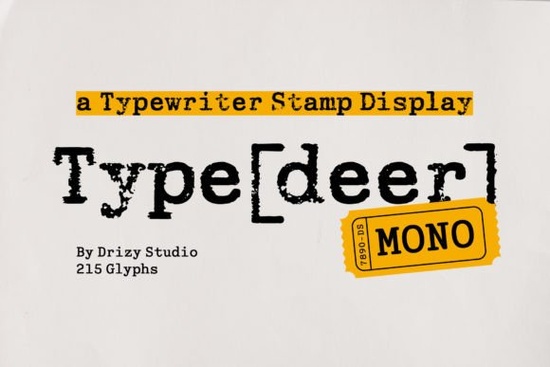
Looking for a font that brings a handmade, vintage feel to your designs? Typedeer Mono delivers exactly that a typeface built to mimic the look of rubber stamp impressions. It’s perfect if you want to add character to stationery, packaging, or digital projects without relying on stock images or clip art.
What makes Typedeer Mono stand out?
Unlike clean, uniform fonts, Typedeer Mono has an intentionally imperfect look. Each letter shows slight variations in stroke width, uneven edges, and subtle ink smudges just like real rubber stamps pressed onto paper. This irregularity gives your work a tactile, authentic vibe that feels personal and crafted by hand.
It works especially well for:
- Handwritten-style invitations and greeting cards
- Minimalist branding with a retro touch
- Print-on-demand items like mugs, T-shirts, and notebooks
- Journaling layouts and planner designs
- Logo concepts that need a quirky, memorable edge
How to use it effectively in your projects
The best results come from pairing Typedeer Mono with simpler, more neutral fonts. For example, use a clean sans-serif for body text and let Typedeer Mono shine in headings or key phrases. This contrast helps balance the font’s busy texture while keeping your design readable.
Try using it in small caps for labels or bullet points it keeps the charm without overwhelming the layout. You can also experiment with color: dark gray or deep blue ink effects often enhance the stamp-like quality, making it look more aged and intentional.
If you’re into crafting or designing for print, this font pairs beautifully with textures like kraft paper or recycled cardstock. The distressed style naturally blends into these backgrounds, giving your final piece a cohesive, handmade feel.
Why designers are choosing this font
Many creators turn to Typedeer Mono when they want to avoid the “digital” look. It’s not just about aesthetics it’s about storytelling. A stamp impression suggests something meaningful was written down, maybe even by someone special. That emotional weight adds depth to your project.
It’s also great for small businesses and hobbyists who want to build a unique brand voice. Whether you're selling on Etsy, creating custom gifts, or building a personal blog, this font helps your work stand out from mass-produced designs.
Once downloaded, make sure to test it at various sizes. At larger sizes, its imperfections become more pronounced and expressive. At smaller sizes, it stays legible but still retains its distinctive character.
Final thoughts
If you’re drawn to fonts that feel lived-in and full of story, Typedeer Mono is a solid choice. It doesn’t try to be perfect it embraces the beauty of small flaws. That authenticity is what makes it valuable for real projects, not just mockups.
Give it a try on your next design. Use it once, and you’ll likely find yourself reaching for it again and again.